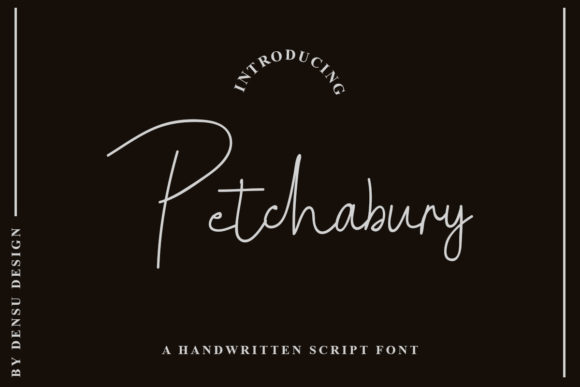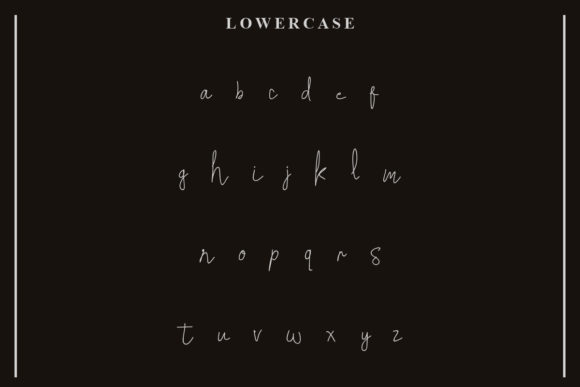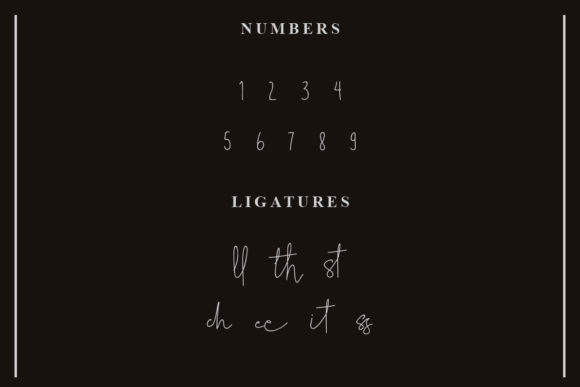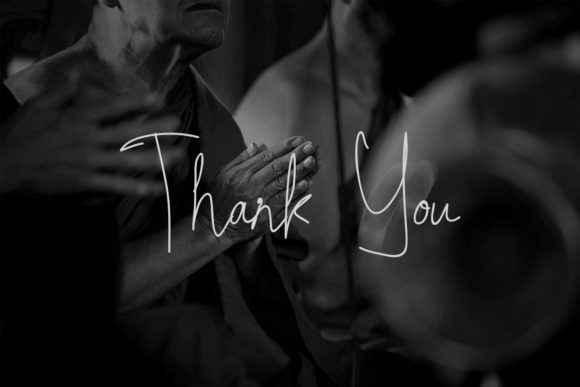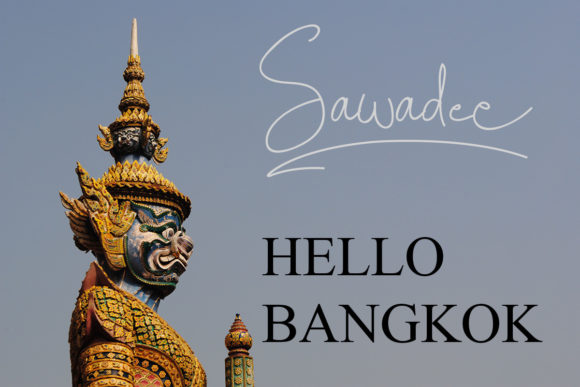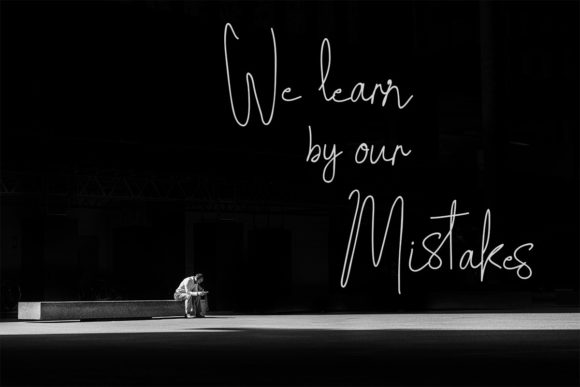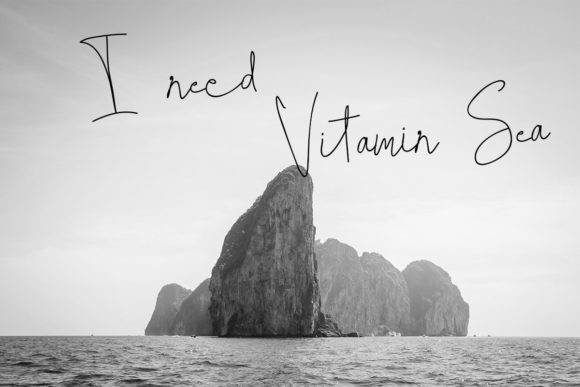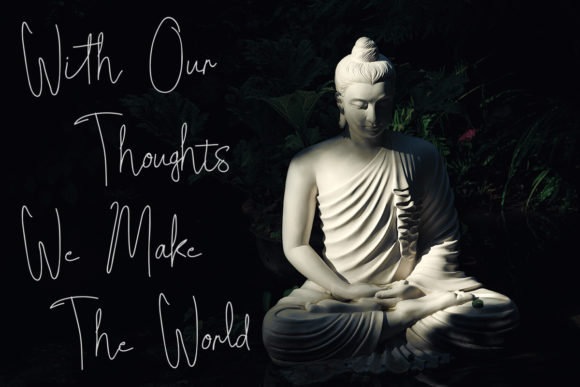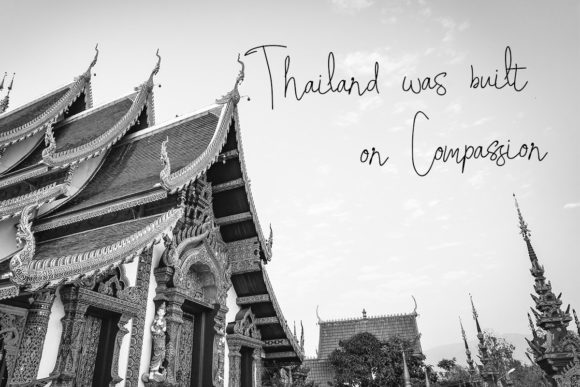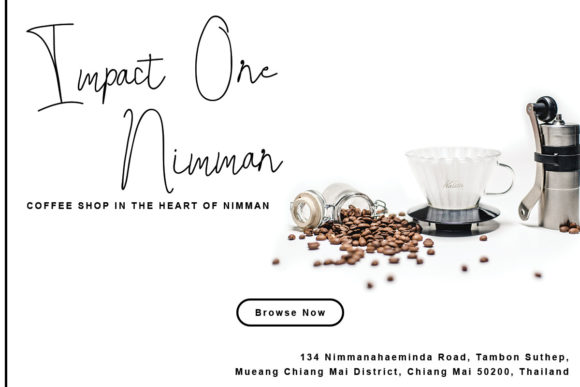
Petchabury Font
Petchabury is a casual fun script font, created by using a brush pen. Clean and a little bit quirky, this font is the perfect fit for all of your logos, branding, social media, and crafty DIY projects.